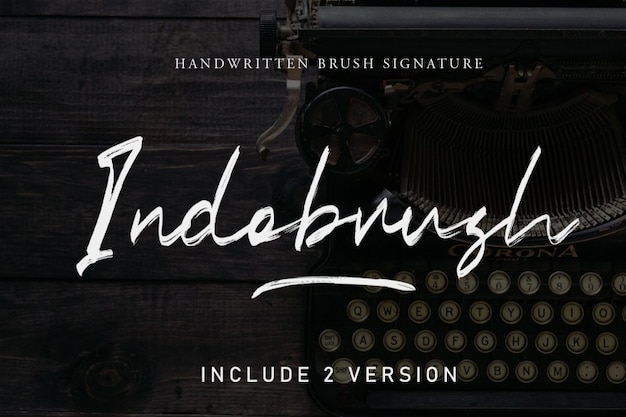
Indobrush
Indobrush Font
"Indobrush" font gracefully blends the artistry of brush strokes with elegant handwritten charm. Each letter flows with finesse, exuding a timeless allure. Perfect for adding a touch of sophistication to your designs, infusing them with a sense of refined creativity.
Indobrush Regular (400)
Indobrush Regular Alternate (400)